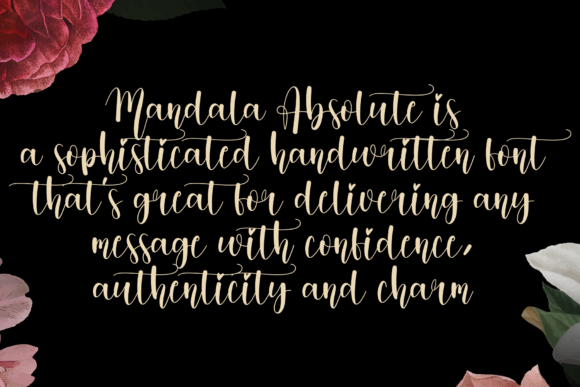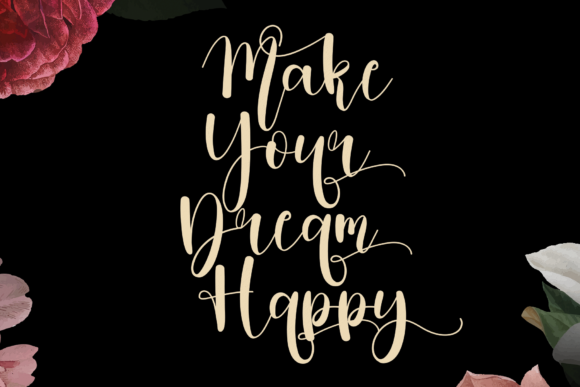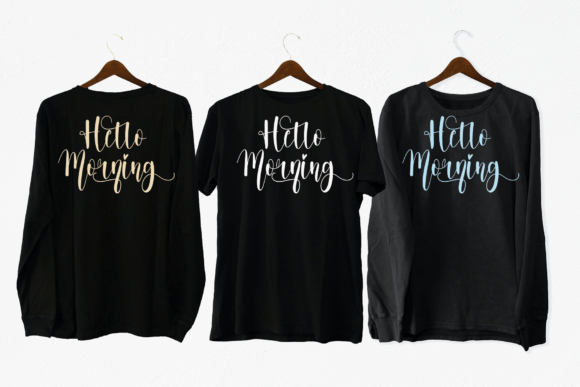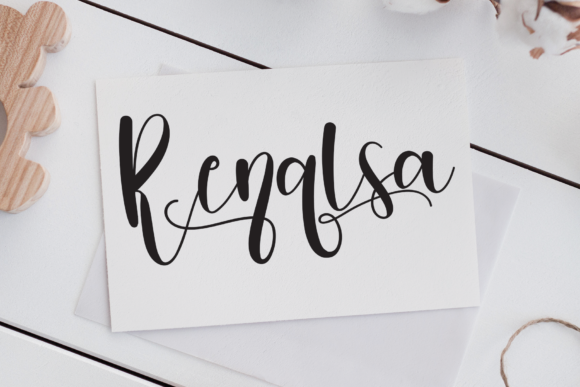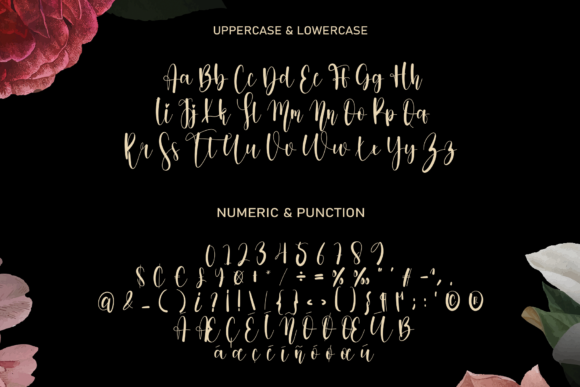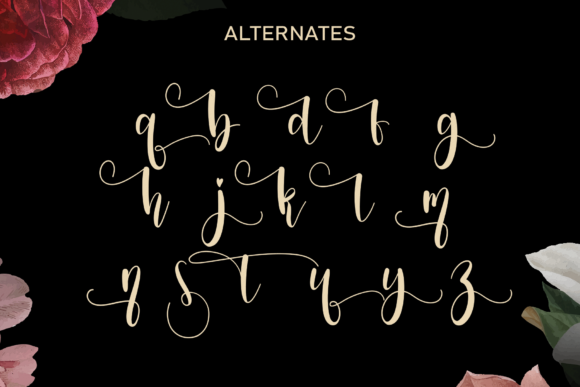
Introduction to Mandala Absolute Font
Have you ever found yourself stuck in a creative rut, desperate for a spark to ignite your next design project? Perhaps you’re working on a high-end branding campaign, and you need a font that exudes elegance and sophistication. Or maybe you’re a free-spirited artist, searching for the perfect design resource to add a touch of whimsy to your latest piece.
Whatever your creative endeavor, I’m excited to introduce you to the Mandala Absolute Font – a dazzling and highly detailed script font that’s sure to elevate your design game. With its intricate details and PUA encoded glyphs, this font is the perfect addition to any creative project, allowing you to unlock a world of possibilities with ease.
Key Features of Mandala Absolute Font
- High-quality design: The Mandala Absolute Font is a premium design resource featuring intricate and detailed patterns, perfect for creative projects.
- Transparent background: This font allows for seamless integration into any design, making it ideal for digital art, web design, and print materials.
- Resolution-independent: The font’s vector-based design ensures that it remains crisp and clear at any resolution, from low to high DPI.
- Unique characteristics: The Mandala Absolute Font features intricate, hand-drawn patterns and designs, making it a standout choice for designers looking to add a touch of elegance to their creative projects.
- Perfect for design projects: Whether you’re working on a digital art piece, a website, or a print material, the Mandala Absolute Font is an excellent design resource to have in your toolkit.
Honest Review: Mandala Absolute Font
I recently had the chance to try out the Mandala Absolute Font, and I was excited to see if it would bring a new level of creativity to my design projects. Overall, I was pleasantly surprised by its quality and versatility.
Here are some of the features I appreciated:
- Clean and modern design
- Perfect for logos, branding, and other creative projects
Limitations: ⚠️ While the font is high quality, I did notice that it can be a bit heavy on certain devices. Additionally, the font may not be as versatile as some other options, but it’s still a great choice for most design projects.
Overall, I was impressed by the Mandala Absolute Font and would definitely recommend it to designers looking for a high-quality, free design resource.
Tips for Getting the Most Out of Mandala Absolute Font
Experiment with different font sizes and styles to create visually appealing combinations. Use the font in conjunction with other design elements to create a cohesive look. The possibilities are endless with this versatile font.
Mandala Absolute Font is suitable for a wide range of creative projects, including wedding invitations, party decorations, and artwork. Its intricate design and high quality make it an ideal choice for anyone looking to add a touch of sophistication to their work.